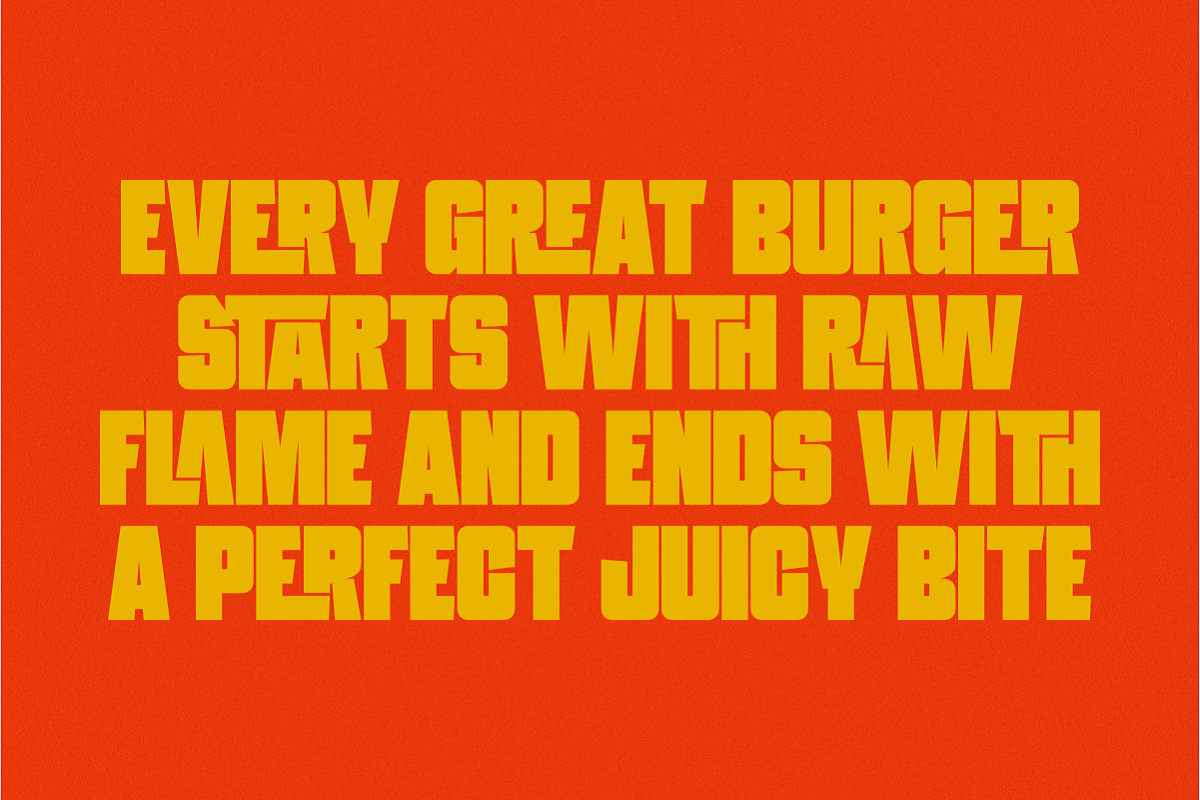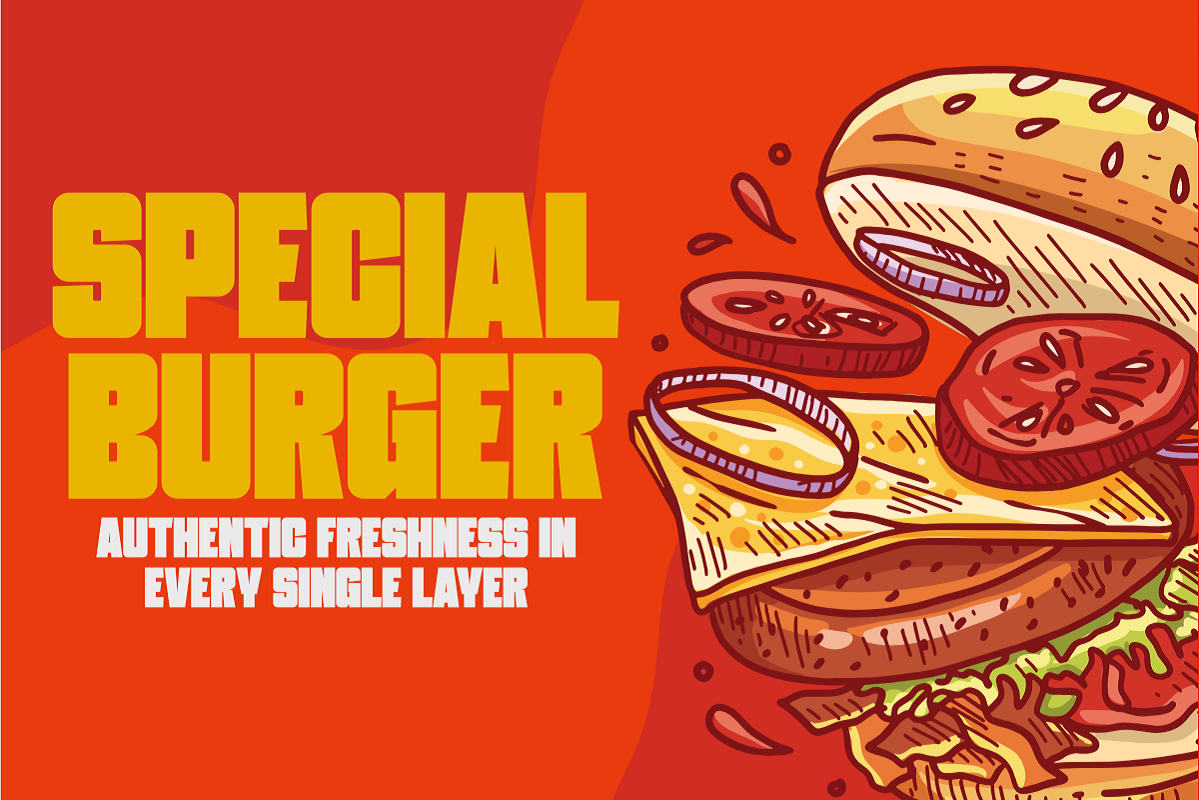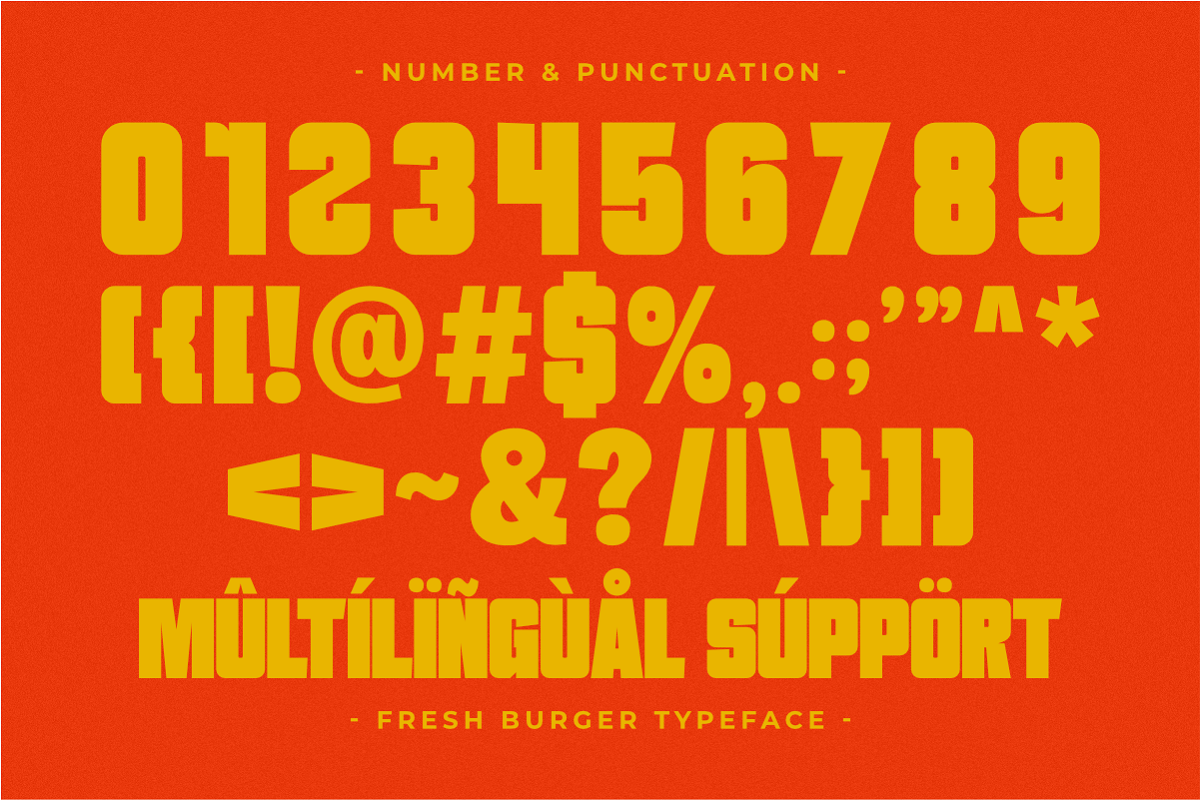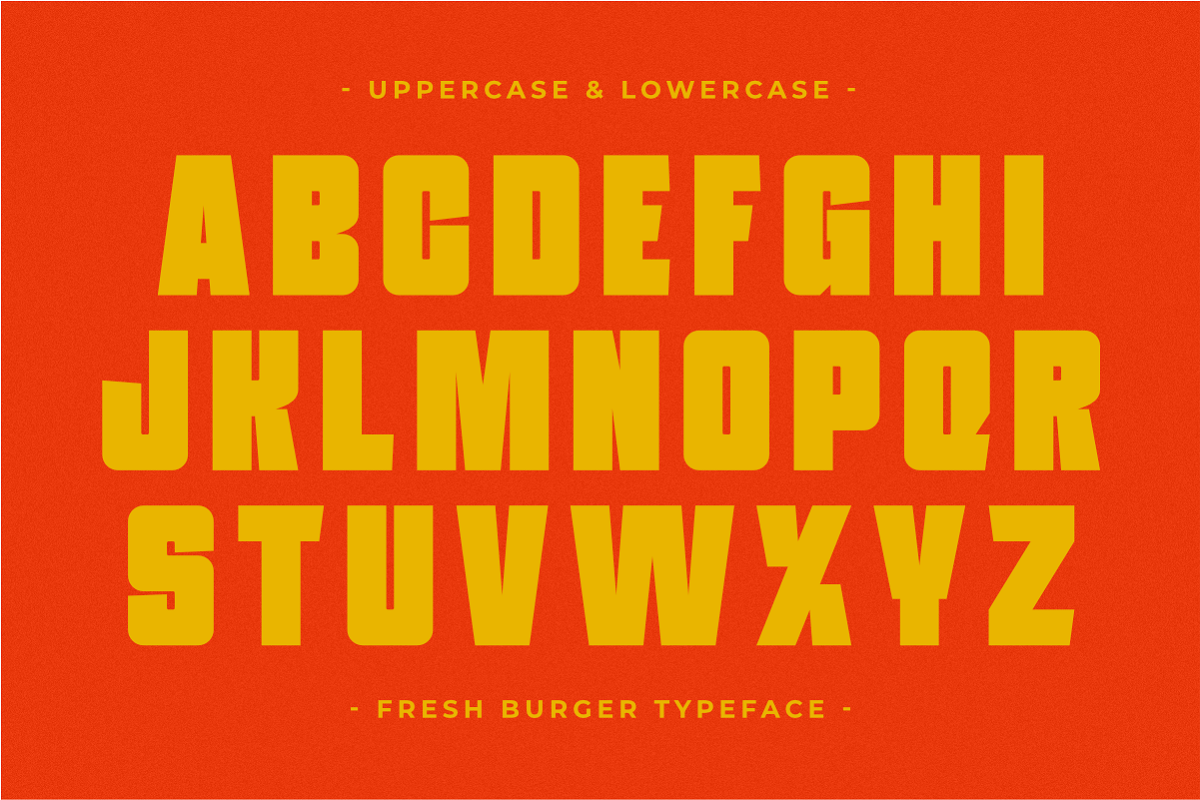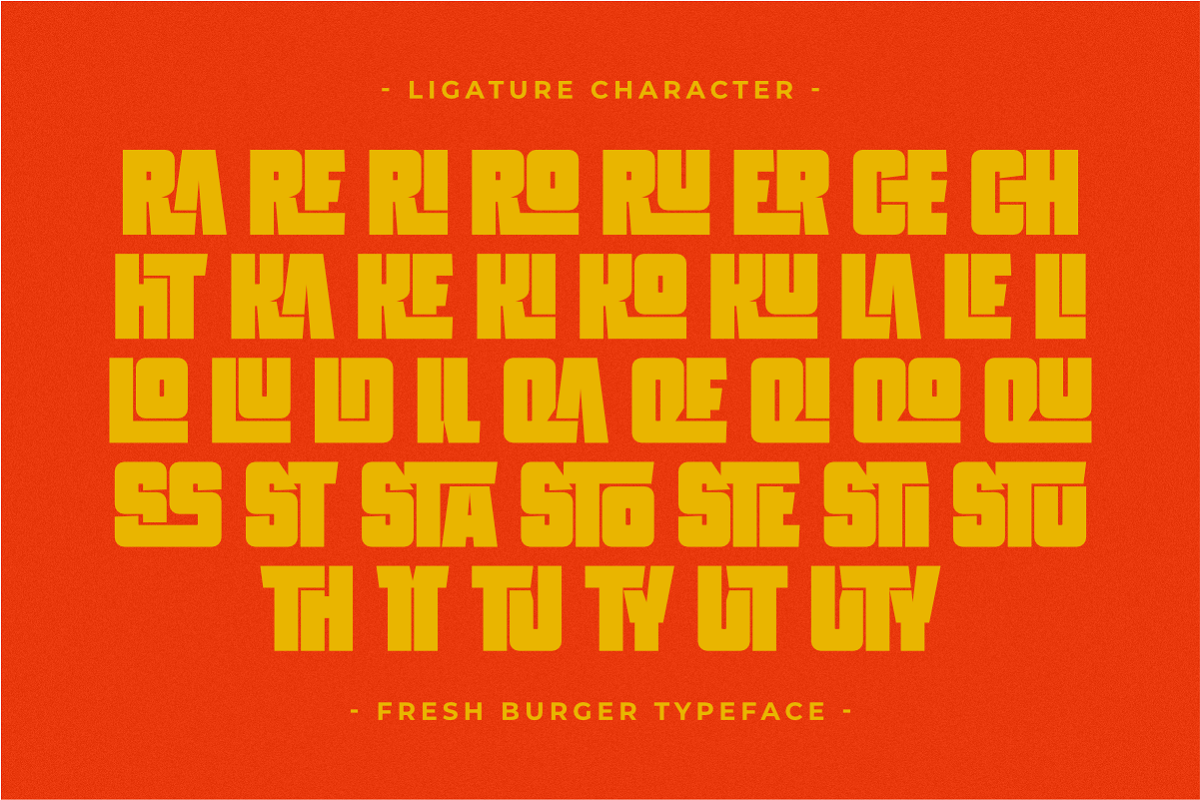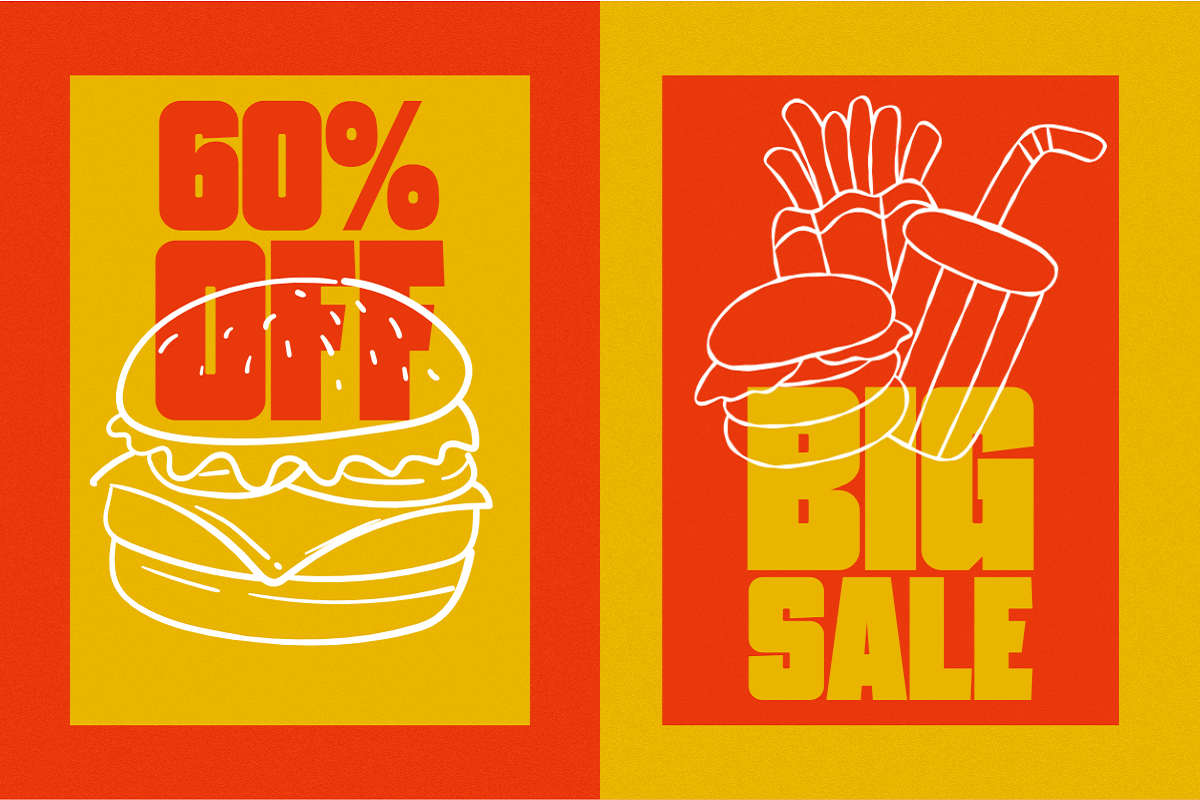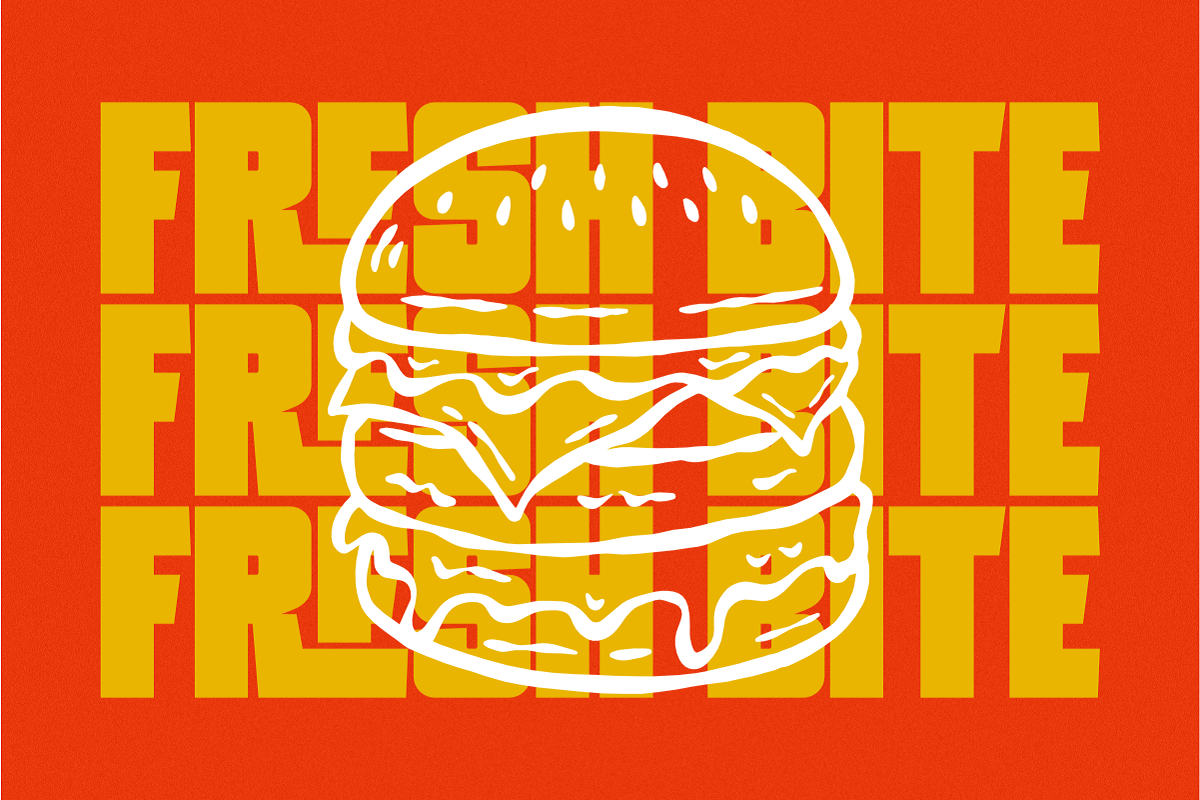
Fresh Burger - Modern Display Sans
Fresh Burger is a mouth-watering and high-impact Modern Display font designed to bring a bold and delicious look to your branding projects. This chunky, all-caps typeface features unique, artistic ligatures and a solid, blocky structure that is perfect for food branding, restaurant logos, fast food menus, and playful packaging. Its thick, clean lines and creative character connections deliver a friendly yet professional visual identity, making it an essential tool for social media headlines, food truck signage, and vibrant advertising posters.